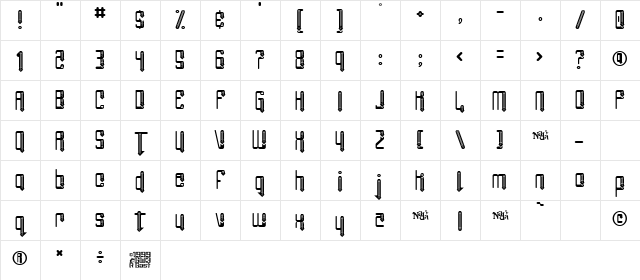
Angie Impressing Regular
Design Context for Angie Impressing
Angie Impressing is a composed and adaptable typeface that performs quietly and consistently across a wide range of design contexts.